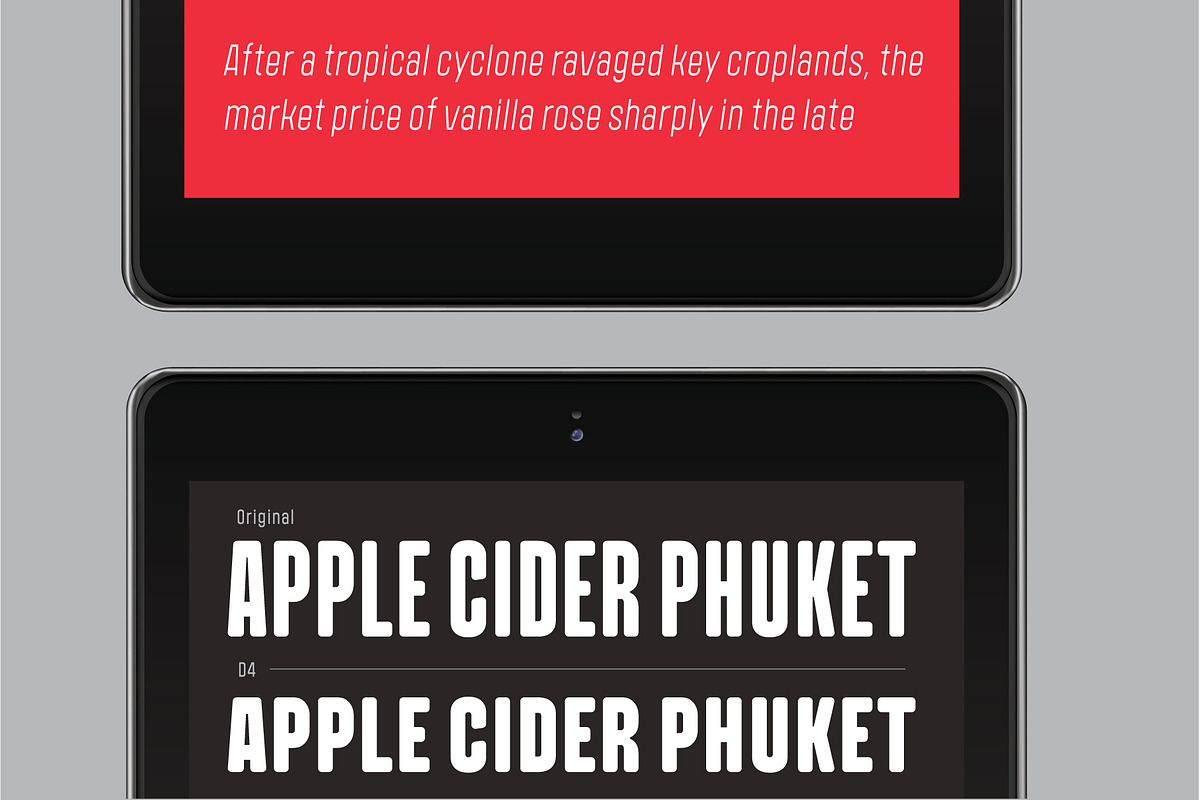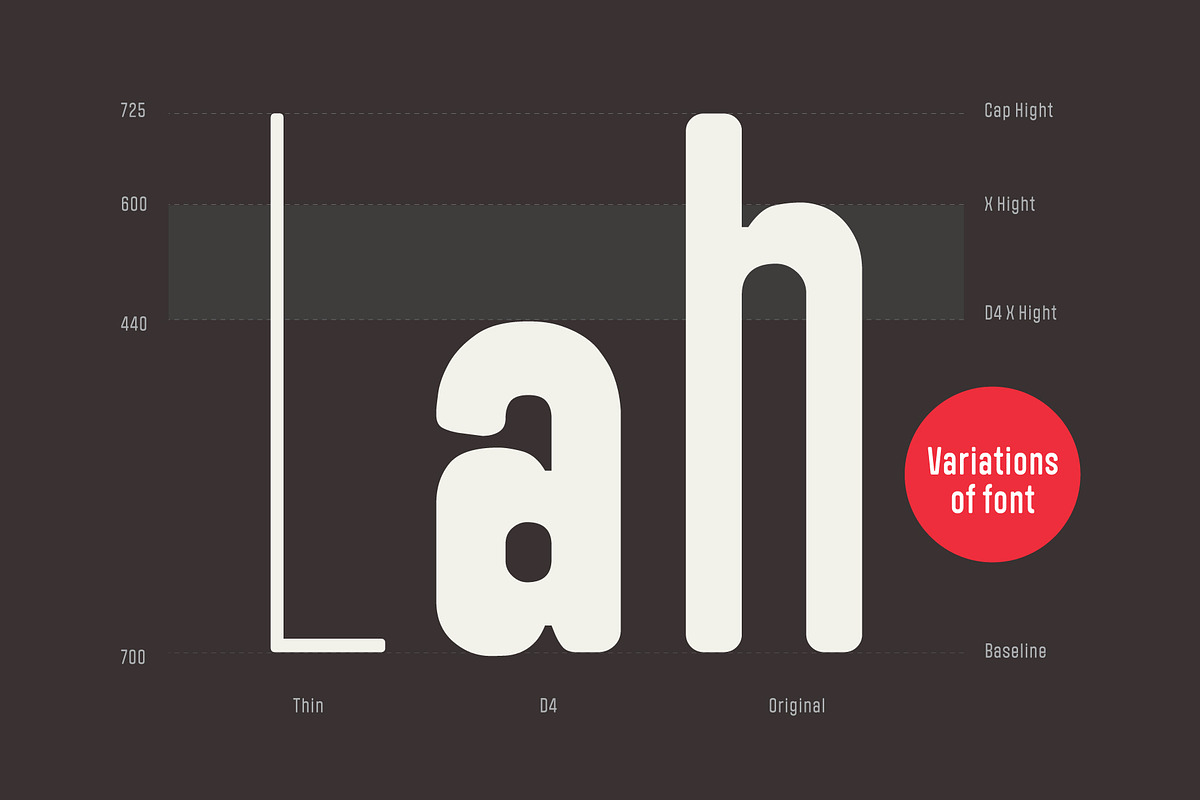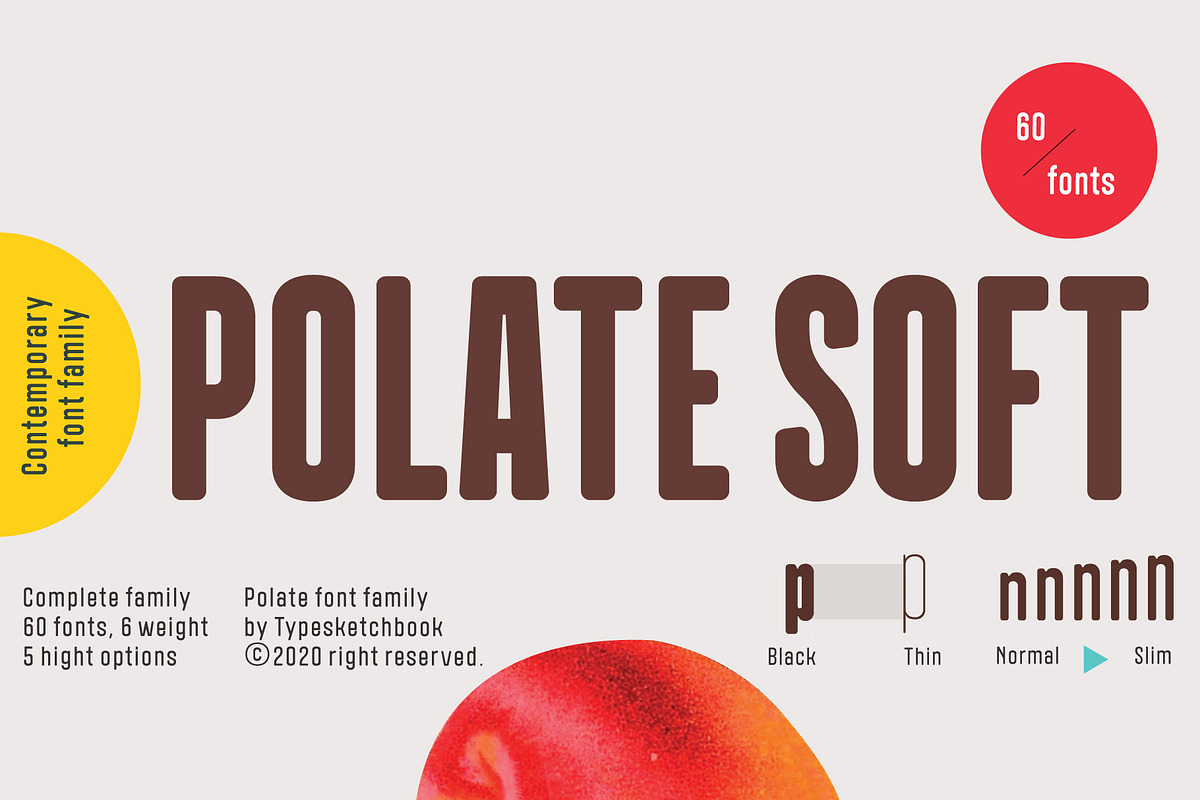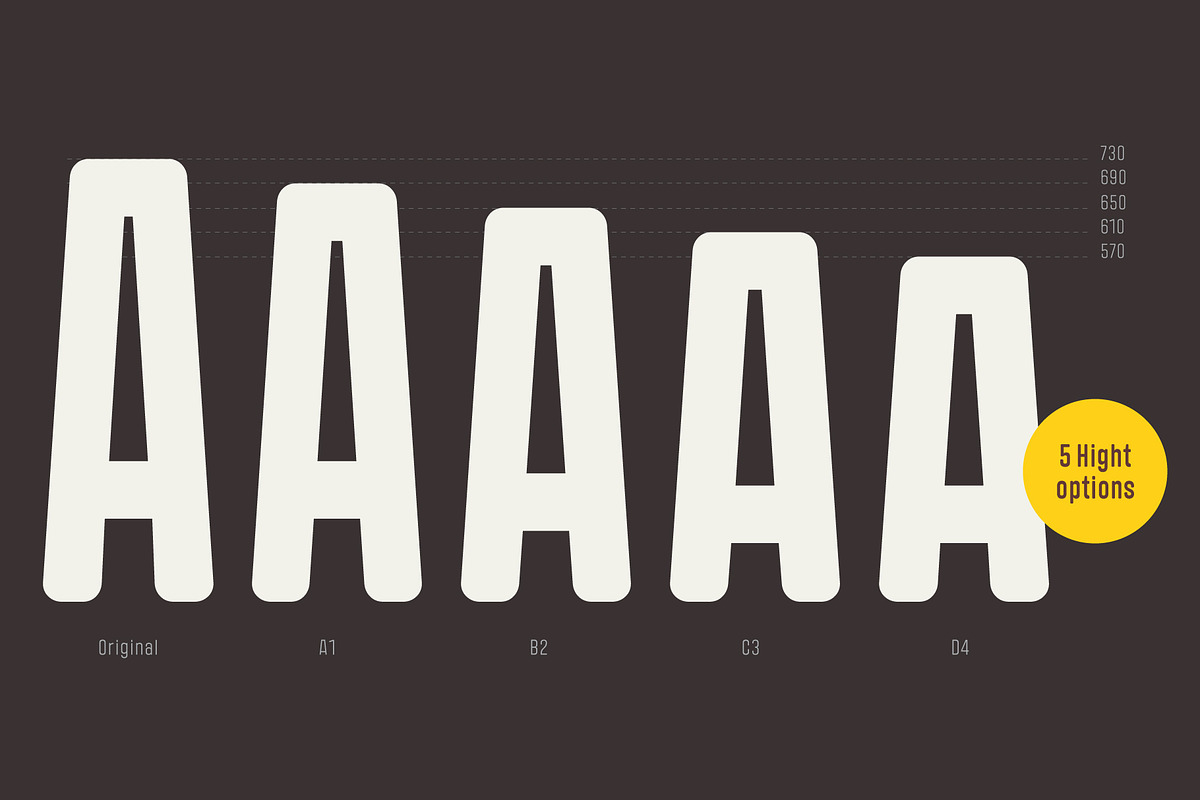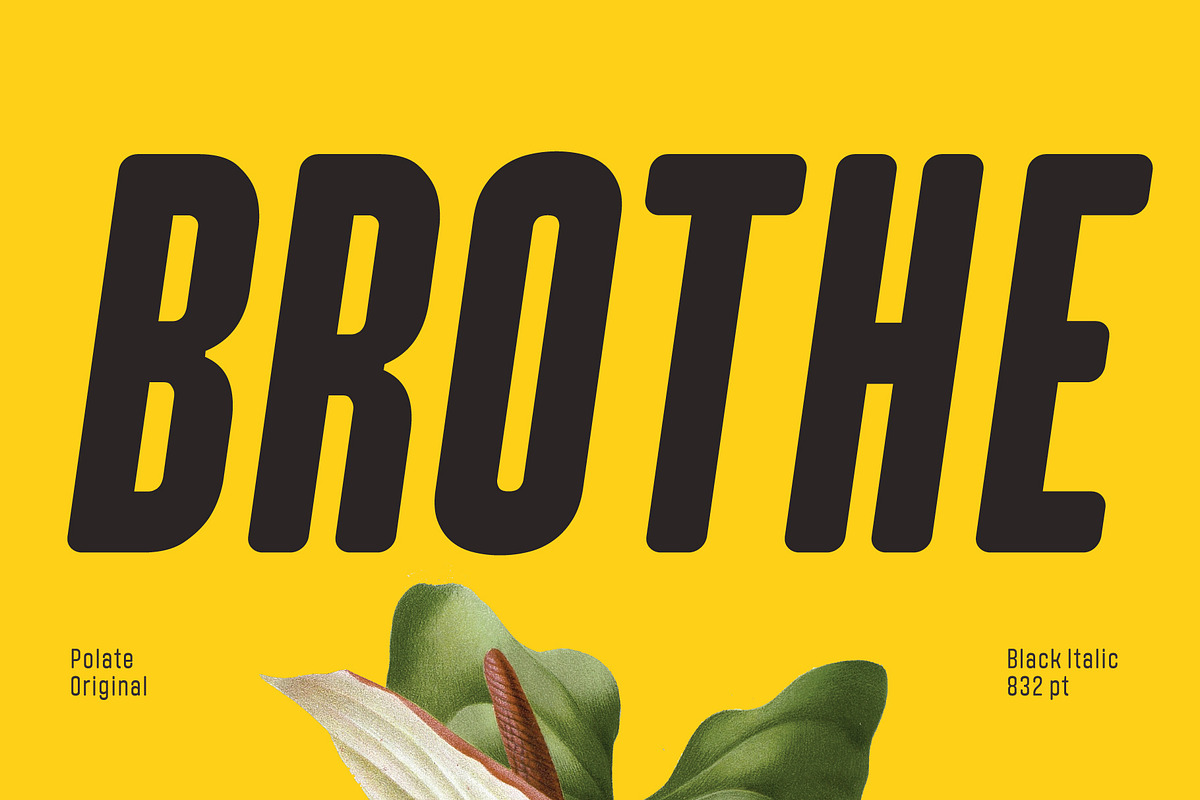
Polate Soft
Polate Soft is an altered modified from the form of the original “Polate” typeface. Designed to be more friendly, the font family has rounded terminals that harmonizes with rounded corners. With all of these features, “Polate Soft” is a prominent, eye-catching and unique typeface. It comes with 6 weights with 5 Hight options in order to suit for a multifunctional usage, especially for cooperative work, such as website, magazine, editorial, publishing, as well as packaging.